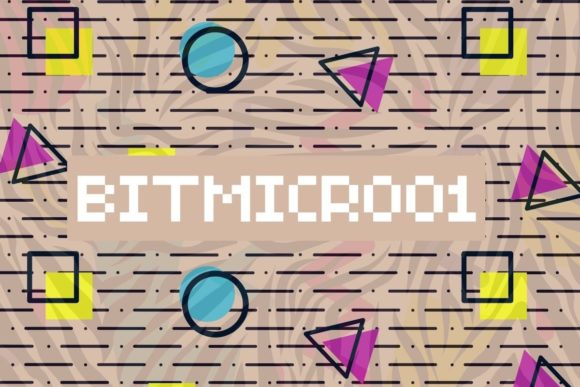
The Retro Charm of BitMicro01: A Pixel-Perfect Font for Designers
I’ll never forget the time I was working on a retro gaming-themed project, and I just couldn’t find the right font to bring it to life. My client wanted something that would transport their audience back to the 8-bit era, but everything I found was either too ornate or too bland. That’s when I stumbled upon BitMicro01, a pixel-styled display font that has since become a staple in my design toolkit.
An Honest Review of BitMicro01
• Minimalistic and clear: BitMicro01 is perfect for designs that need a clean, retro aesthetic without being too over-the-top.
• Easily readable: Even at small sizes, this font remains legible, making it ideal for body text or headings.
• 💻 Perfect for tech and gaming designs: The pixelated style instantly evokes a sense of nostalgia for old computers and consoles.
While BitMicro01 is an excellent font, it’s not without its limitations. For instance:
• 🤔 Limited use for body text: While it’s readable, BitMicro01 is primarily designed for headings and display text. Using it for long blocks of text might not be the most effective choice.
• ⚠️ Some characters may not be suitable for non-English languages: As with many display fonts, certain characters or glyphs might not be optimized for languages outside the Latin alphabet.
The Backstory Behind BitMicro01
BitMicro01 was designed by a team of enthusiasts who wanted to create a font that captured the essence of early computer graphics. Drawing inspiration from old video games, computer interfaces, and digital displays, they crafted a typeface that’s both nostalgic and versatile. While the design team remains anonymous, their passion project has certainly resonated with designers and creatives worldwide.
Q: Is BitMicro01 suitable for body text?
A: While it’s readable, BitMicro01 is primarily designed for headings and display text. For longer blocks of text, you might want to consider a more traditional serif or sans-serif font.
Q: Does BitMicro01 support non-English languages?
A: While BitMicro01 includes a range of characters for the Latin alphabet, support for non-English languages may be limited. Check the font documentation or contact the designer for more information.